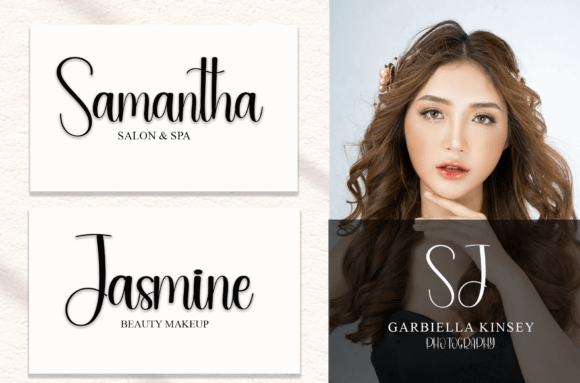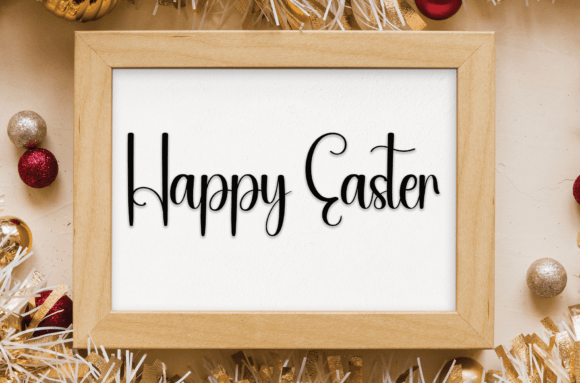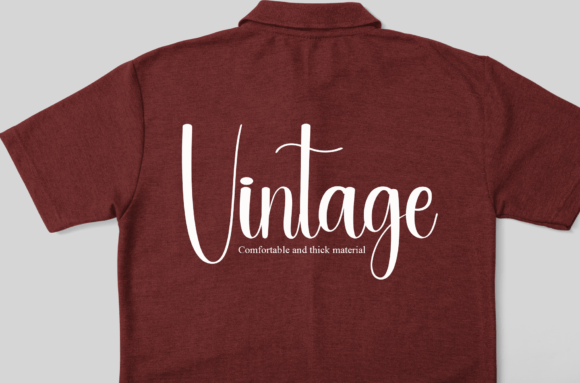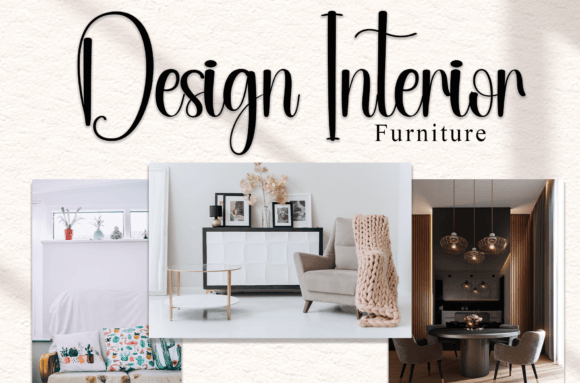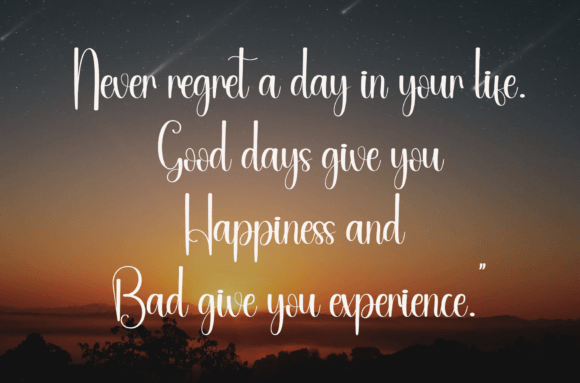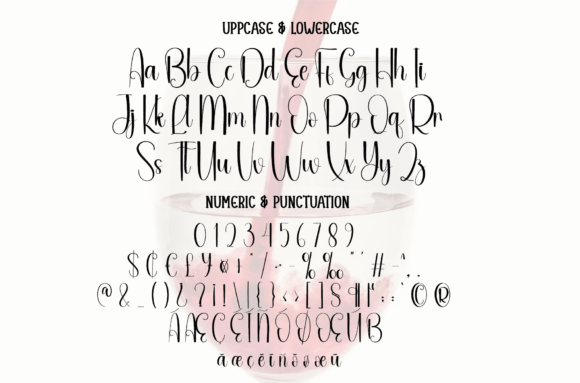
The Sweet Charm of Burgundy Font: A Designer’s Delight
I’ll never forget the time I was working on a wedding invitation project, and my client asked for a font that was “sweet, friendly, and elegant.” I scoured the internet, tried countless fonts, but nothing seemed to fit the bill. That was until I stumbled upon Burgundy Font. ✨ This beautiful, handwritten font has been a game-changer for me, and I’m excited to share its charm with you.
- ✨ Fresh and neat design that’s perfect for a variety of creative projects
- ✅ Sweet and friendly tone that’s sure to delight
- 🎉 Highly versatile and adaptable to different design styles
- 💕 Perfect for wedding invitations, cards, and other special occasions
While Burgundy Font is an excellent choice, it’s not without its quirks. 🤔 For example:
- ⚠️ Limited availability of stylistic alternates, which might limit its use in certain design projects
- ⚠️ May not be suitable for body text or long-form content due to its decorative nature
The Backstory of Burgundy Font
Burgundy Font was designed with love and care by a talented type designer who wanted to create a font that would bring a touch of warmth and personality to any design project. 💕 The font’s sweet and friendly tone is inspired by the beauty of handwritten script and the joy of creative expression.
Q: What is Burgundy Font best used for?
A: Burgundy Font is ideal for wedding invitations, cards, and other special occasions that require a sweet and friendly tone.
Q: Is Burgundy Font suitable for body text?
A: No, Burgundy Font is a decorative font that’s best used for headings, titles, and short-form content.